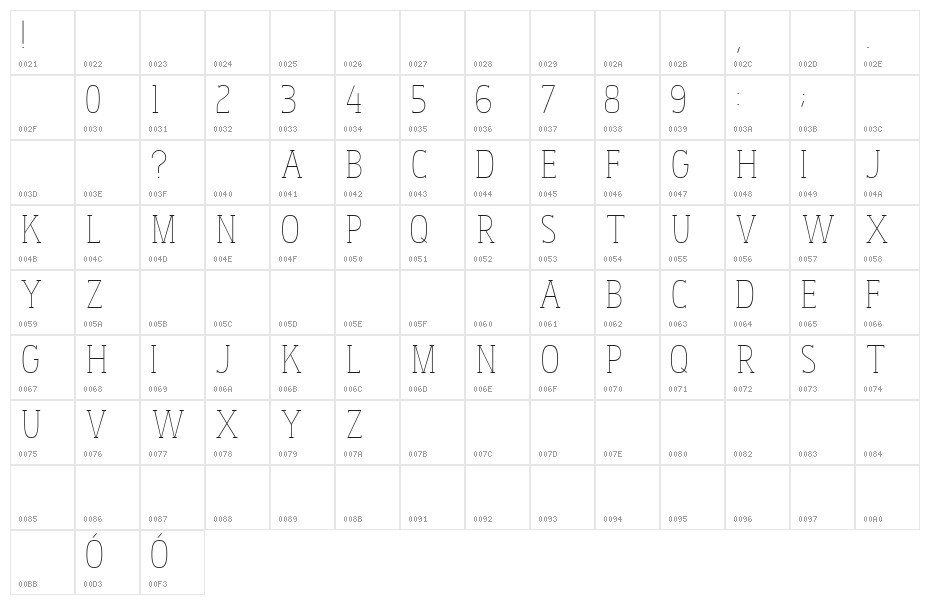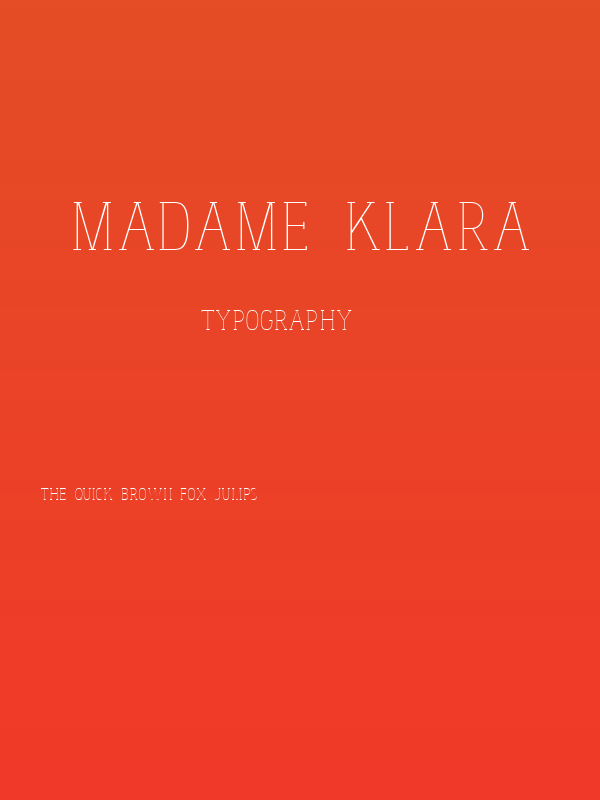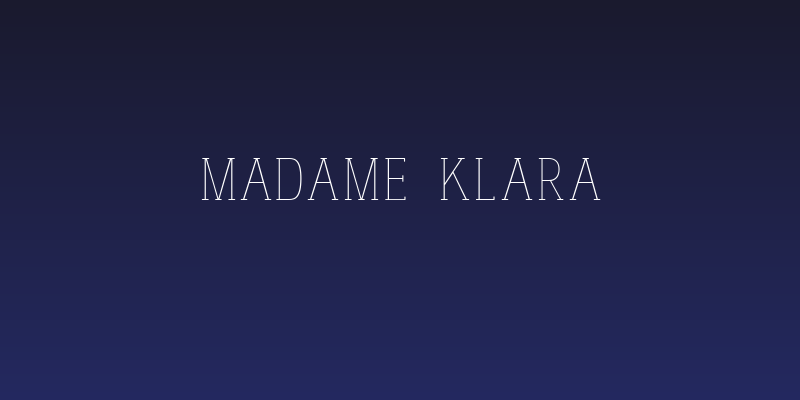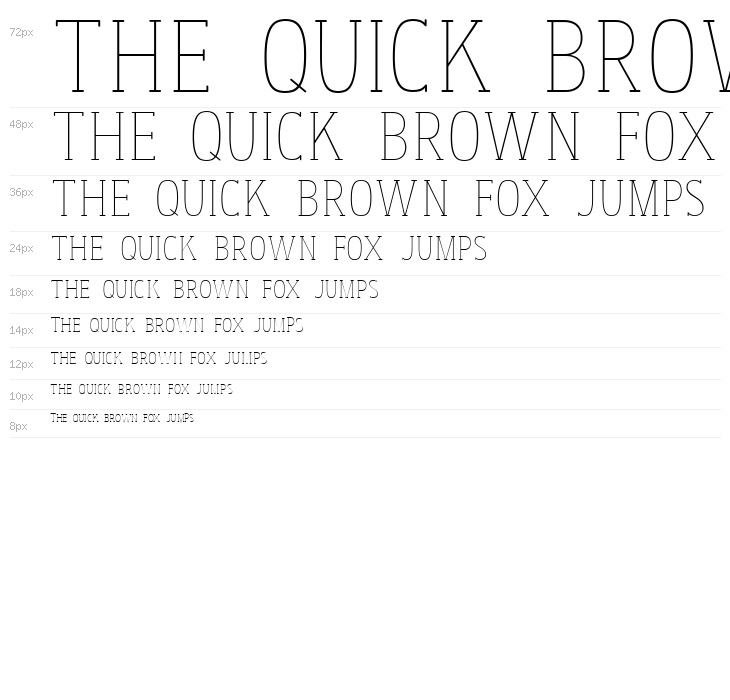
madame klara Font
madame klara Description
This font features a clean and elegant design with thin, elongated strokes that give it a sophisticated and modern appearance. The characters are well-proportioned, with a consistent height and width that create a harmonious look. The uppercase letters are tall and slender, while the lowercase letters maintain a similar style, ensuring readability. The numerals are distinct and align well with the overall design, making them suitable for various applications. The special characters are simple yet effective, complementing the font's minimalist aesthetic. This font is versatile, suitable for both digital and print media, and can be used in a variety of design projects.